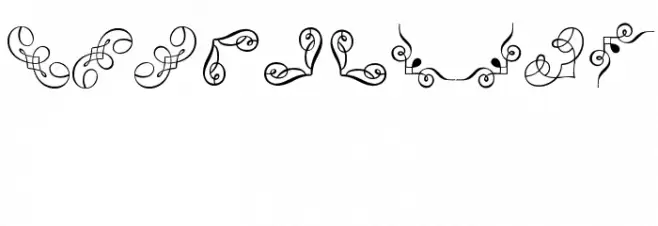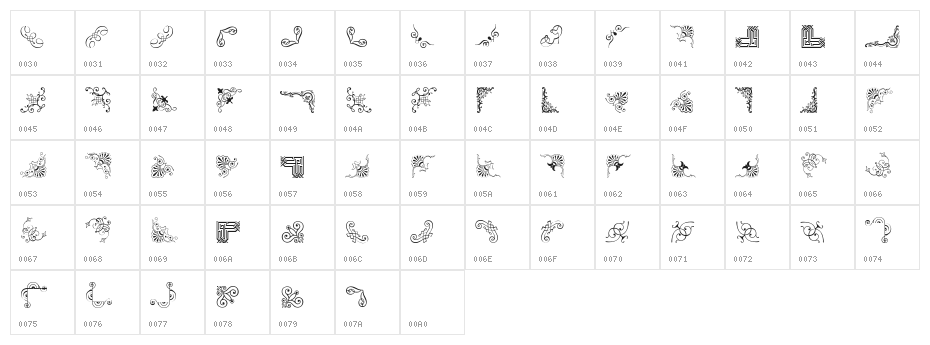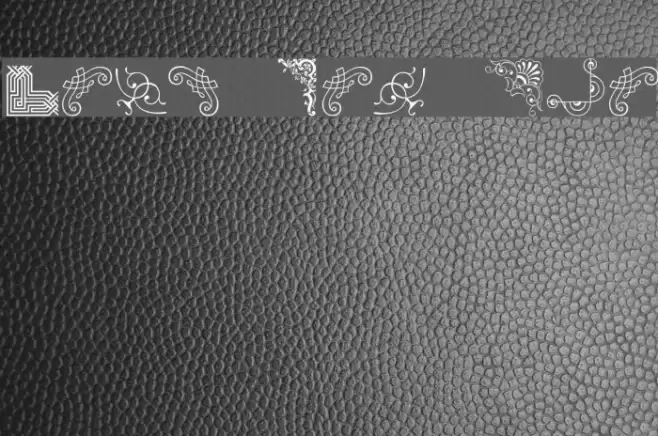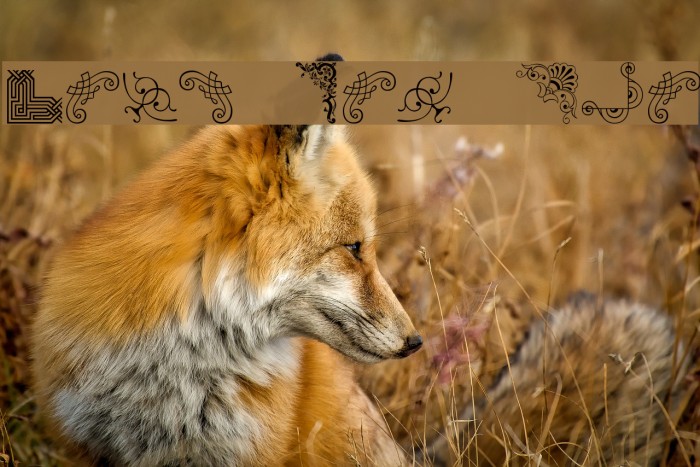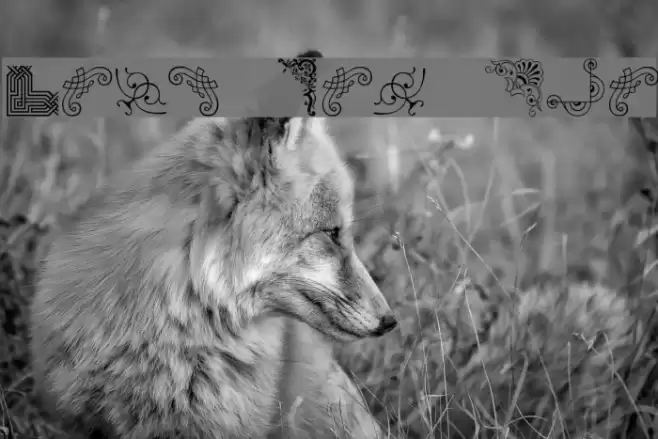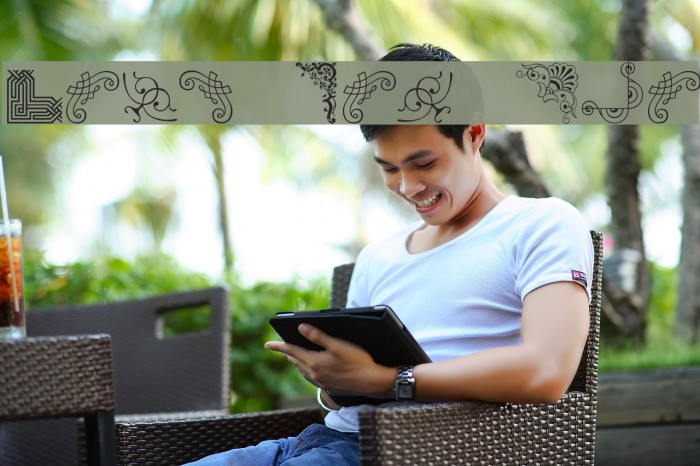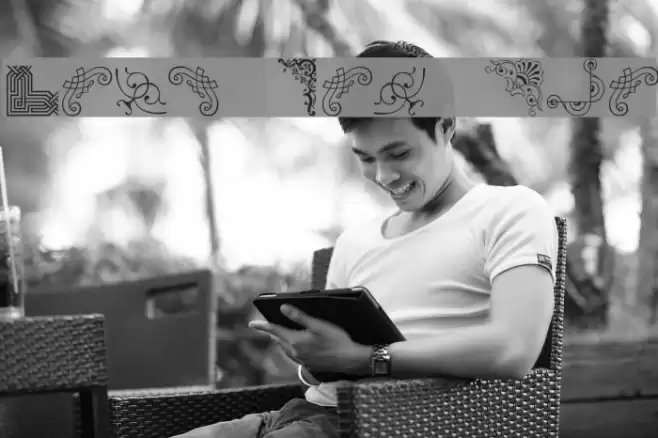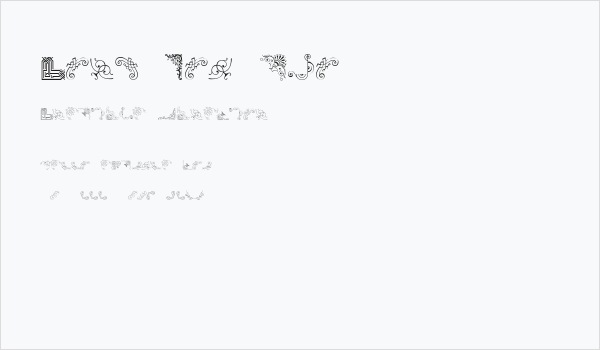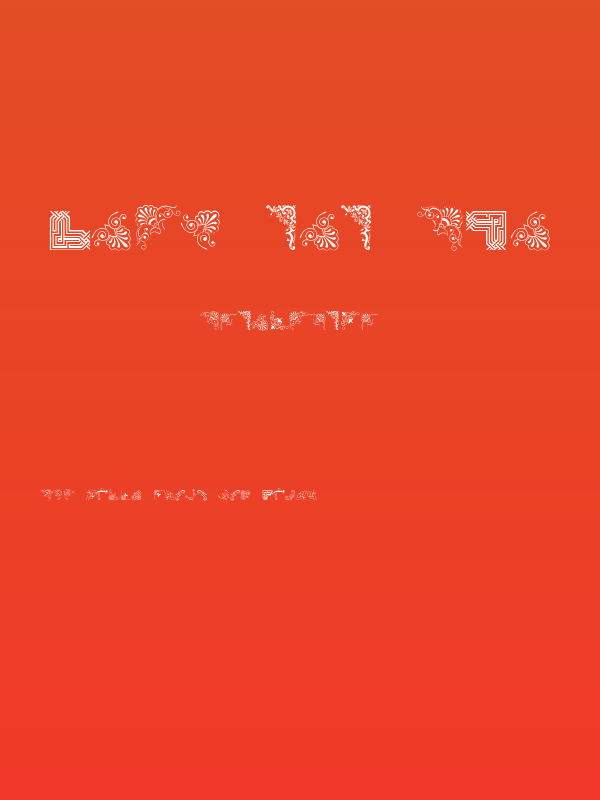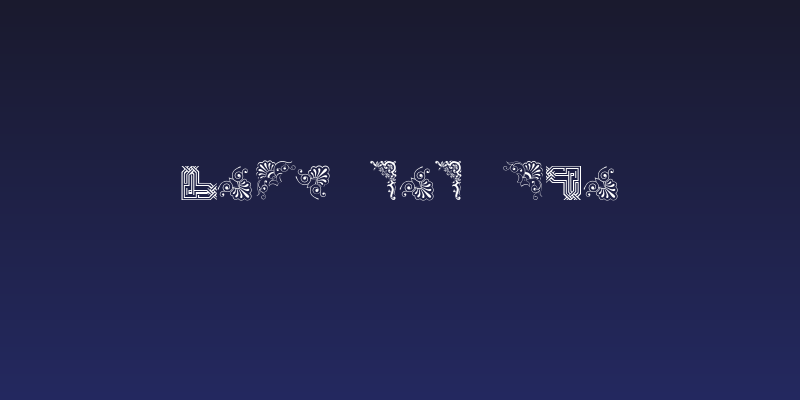
Corn Pop Two Font
Corn Pop Two Description
This design features an intricate and ornate decorative style, characterized by elaborate swirls, flourishes, and embellishments. Each character is uniquely crafted with a high level of detail, making it more of an artistic representation than a traditional font. The elements are reminiscent of vintage or baroque designs, with a focus on aesthetic appeal rather than readability. The overall look is highly decorative, suitable for creating borders, frames, or embellishments in graphic design projects.
| Use Case | Logos, Decorative elements |
| Proposed Projects | Ideal for use in decorative borders, invitations, vintage-themed designs, or artistic embellishments. |